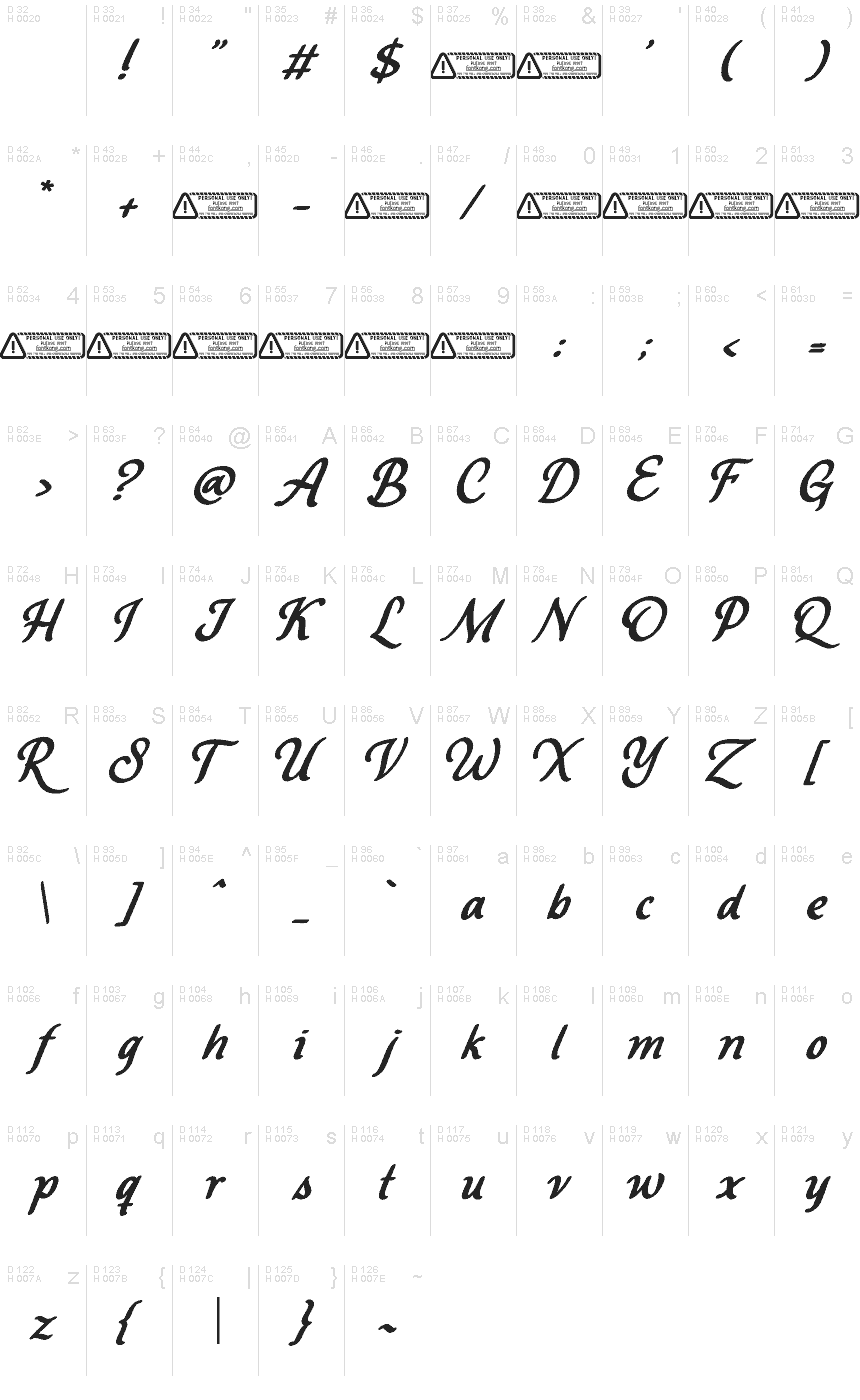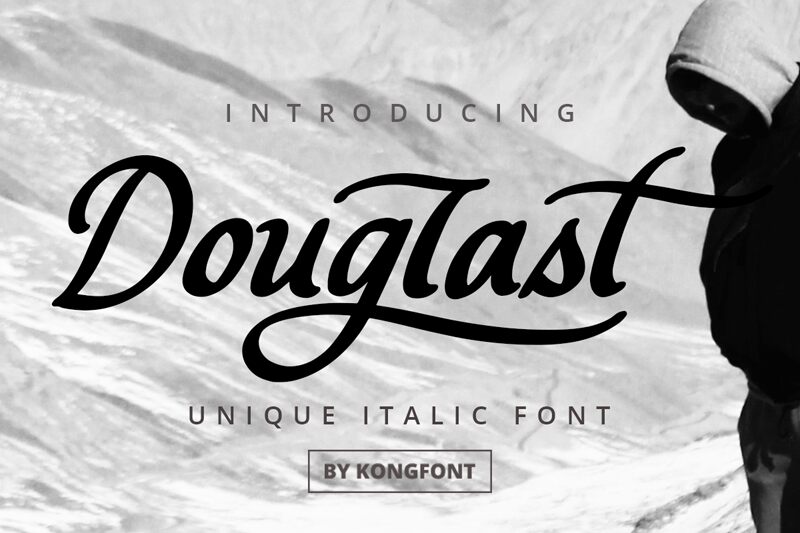
Douglast font by Kong Font is a handwritten font with a unique aesthetic accompanied by an elegant flair and smooth flow. Inspiration seems to be vintage-oriented and the formal mood of the design can immediately be felt when you look at it. Formalness doesn’t spoil the fun, though, as letterform irregularities bring together a dynamic effect we all love in handwriting.
Workspace posters, logos, branding designs, and T-shirts will benefit from Douglast’s energy. Other stationary elements such as cups, office supplies packaging, notepads, business cards etc. are also potential suggestions for putting this free handwritten font to good use! Other possible projects include album covers of singers or bands with a vibe going along the lines of Lydia’s voice artist writings or Vonnegut’s volition on Wednesdays…